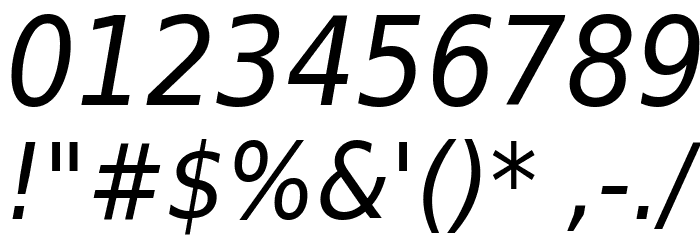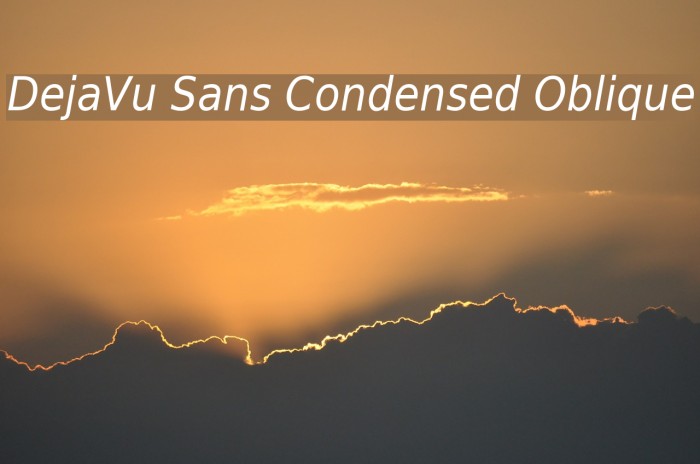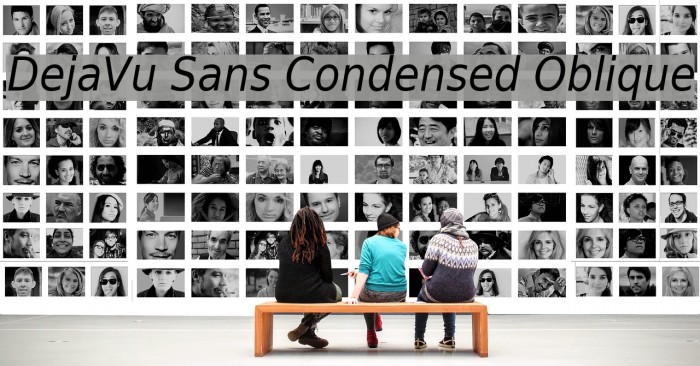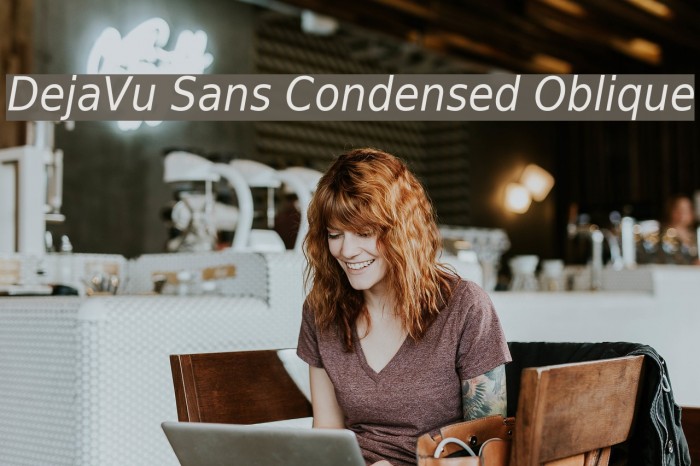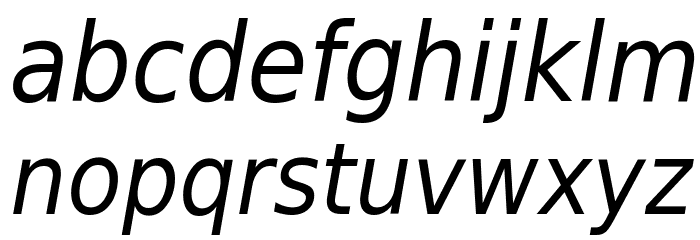
DejaVu Sans Condensed Oblique Font
DejaVu Sans Condensed Oblique Description
This font presents a clean and modern sans-serif style with a condensed width, making it suitable for space-saving designs. The oblique angle adds a dynamic and forward-moving feel, enhancing its contemporary appeal. The characters are well-balanced with a consistent stroke width, providing a uniform appearance. The font maintains clarity and legibility across both uppercase and lowercase letters, as well as numerals and special characters. Its simplicity and elegance make it versatile for various design applications.
| Proposed Projects | Ideal for branding, editorial design, web design, and advertising where a modern and sleek appearance is desired. |